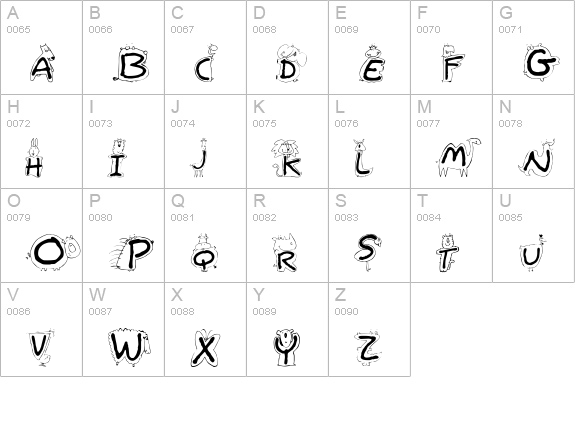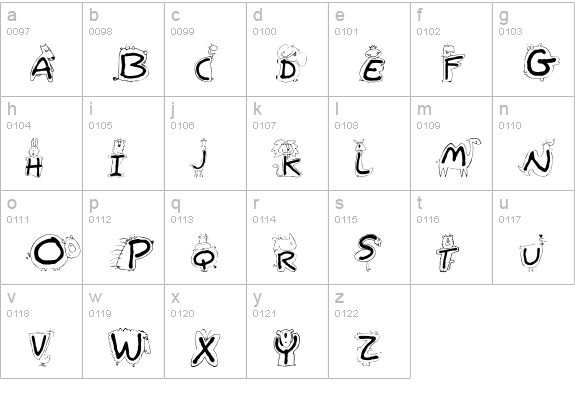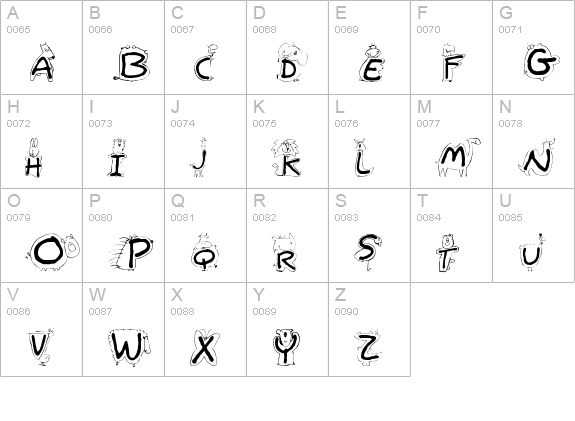
Bestioles Font Details
Bestioles font is a whimsical and charming typeface that adds a touch of playfulness to any design. With its quirky shapes and unique letterforms, Bestioles is perfect for projects that require a fun and lighthearted feel. The font's rounded edges and friendly appearance make it a great choice for children's books, greeting cards, and other creative endeavors. Bestioles font is available for free download at FontsMarket.com, making it easily accessible to anyone looking to add a touch of whimsy to their projects. Whether you're a designer working on a new branding project or a hobbyist looking to spruce up your personal creations, Bestioles font is sure to bring a smile to your face. So go ahead and download this delightful typeface today and let your creativity soar!